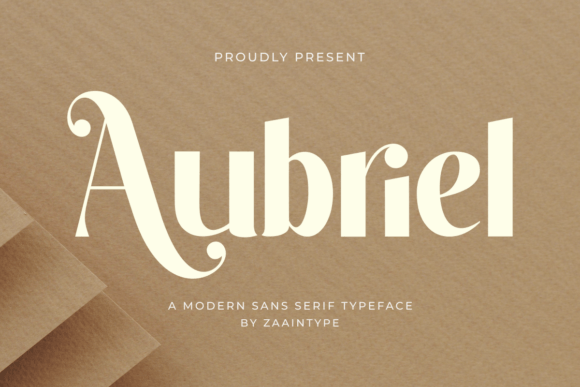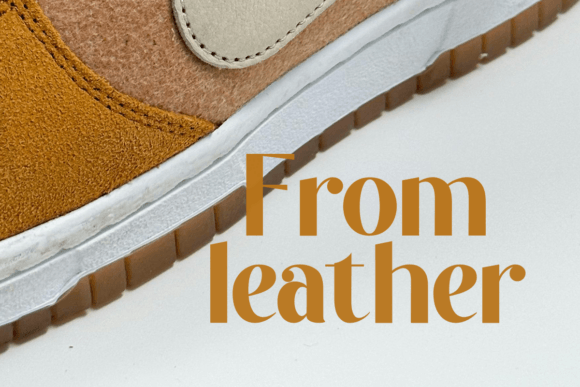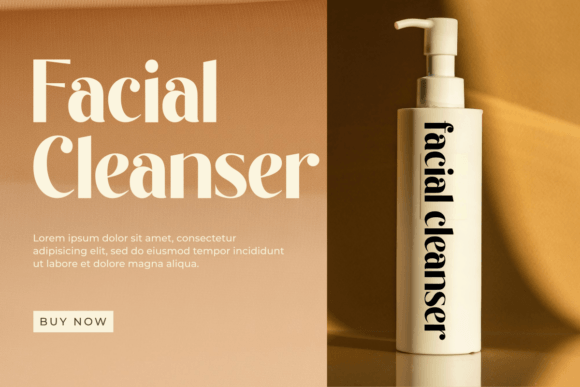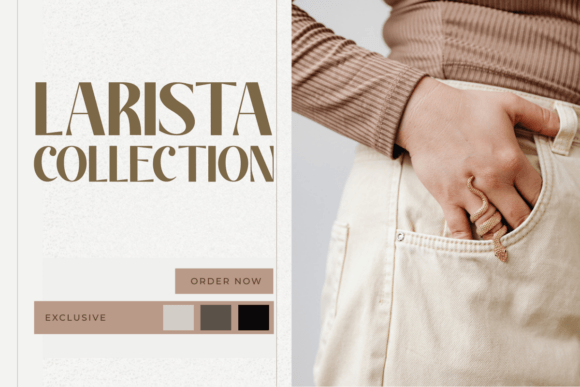
Aubriel Font: Elegant Sans Serif for Modern Branding & Logo Design
About the Aubriel Font
Explore the possibilities with Aubriel Font, a font that offers both beauty and functionality. Unveiling Aubriel, a typeface curated to deliver faultless elegance and lucidity, becoming the heart of your design endeavors. Its immaculate strokes and harmonized dimensions fit seamlessly across various uses – from brand identities to editorials, from digital interfaces to signage. The pared-down beauty of Aubriel is an embodiment of elegant simplicity, presenting optimal readability alongside a contemporary essence, becoming the go-to for designers in quest of a polished impression. Whether deployed for impactful headers or immersive body content, Aubriel ensures your voice echoes with breezy sophistication.
Aubriel Font Usage Examples
Aubriel Font Example